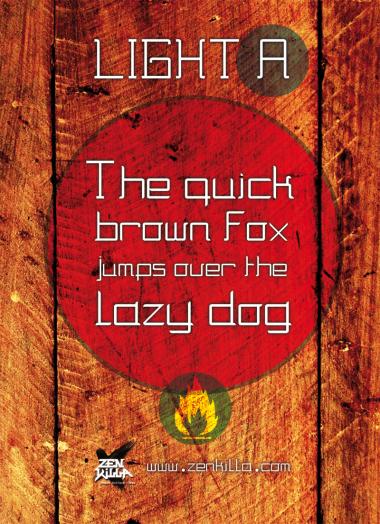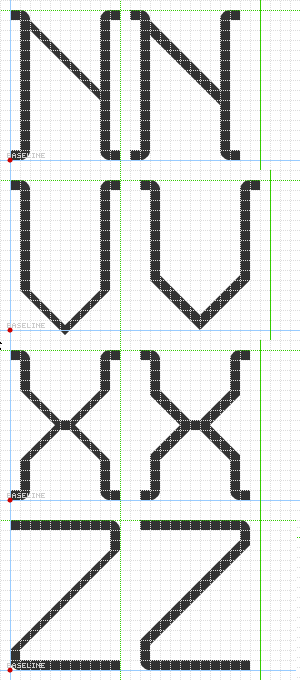
• Light A is my first attemp to create a light font with fontstruct. She's look pretty in small size. All comments are welcome. Zen
New light font now available :)
It's looking good + the sample is great.
Perhaps a few widths need to be checked ... the k and l look thicker than the rest. Also, the diagonals might look better if they were solid (rather than serrated).
I change the diagonal. It's better right know i think. I'll update the sample tomorow. Thanks for your comment p2pnut that's help!
That looks so much better.
(PS: don't forget the x, z and 7) :)
It's ok right now. I update the sample with the modified letters.
This is nice...it's got a futuristic feel to it.
The new, smooth diagonals are better than the old pixelated ones. I would bump up the width on the diagonals just tad.
I forgot to mention the brickstacking technique. I used it on the X to get the two little triangles together to make the outside angles.
Brickstacking is a a technique that allows you to merge two or more bricks into one grid space.
That's so usefull, i'm happy to learn something like this ! thanks again. I've change the X and it's ok right now. Great